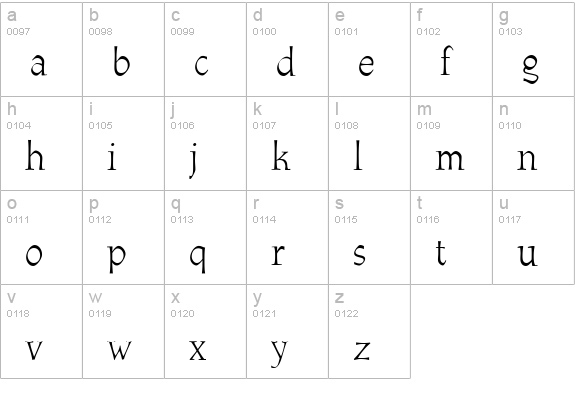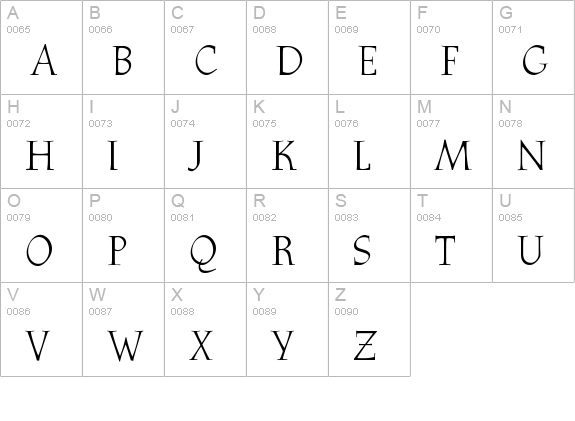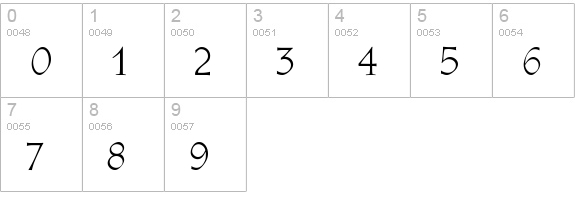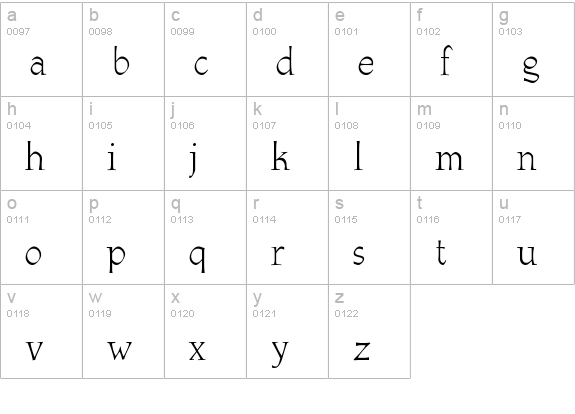
CgAthenaeum Font Details
CgAthenaeum is a sophisticated and elegant font that exudes timeless charm and classic appeal. This font is perfect for adding a touch of sophistication to any project, whether it be for invitations, branding, or editorial designs. With its graceful curves and refined details, CgAthenaeum is sure to elevate the visual appeal of any design. What makes CgAthenaeum even more appealing is that it is available for free download at FontsMarket.com. This means that you can easily access this stunning font and use it in your projects without any cost. Don't miss out on the opportunity to enhance your designs with the beauty of CgAthenaeum - download it for free today!